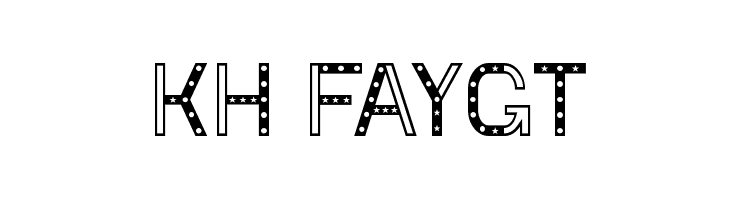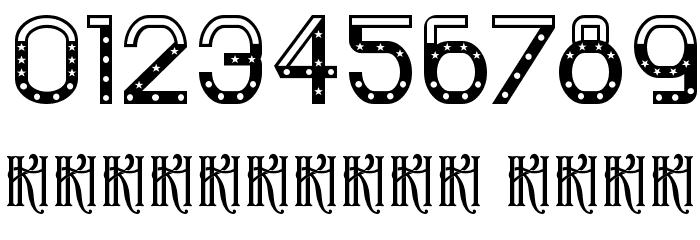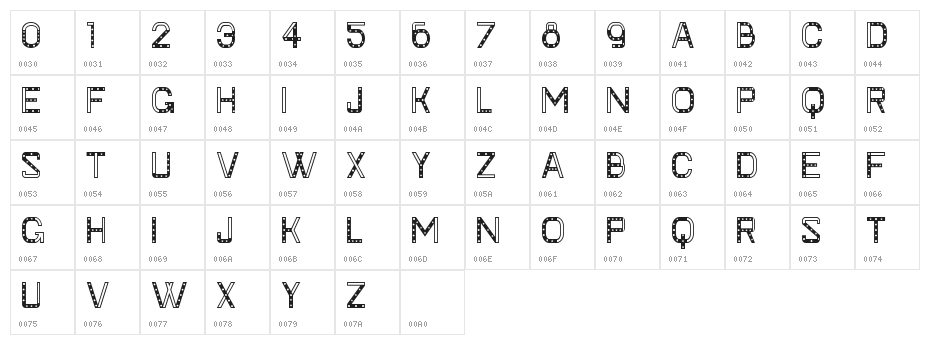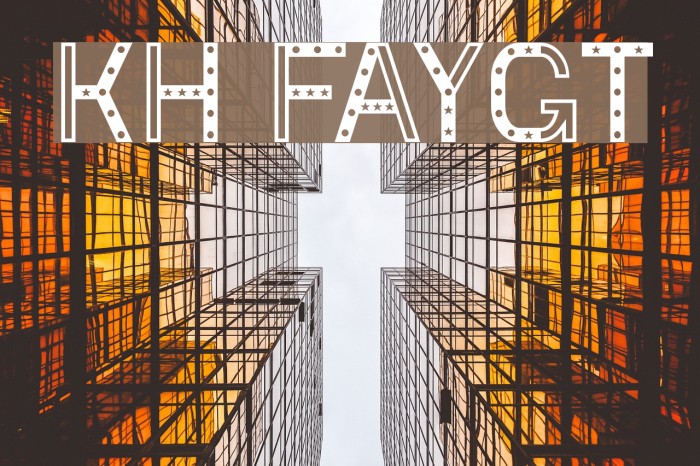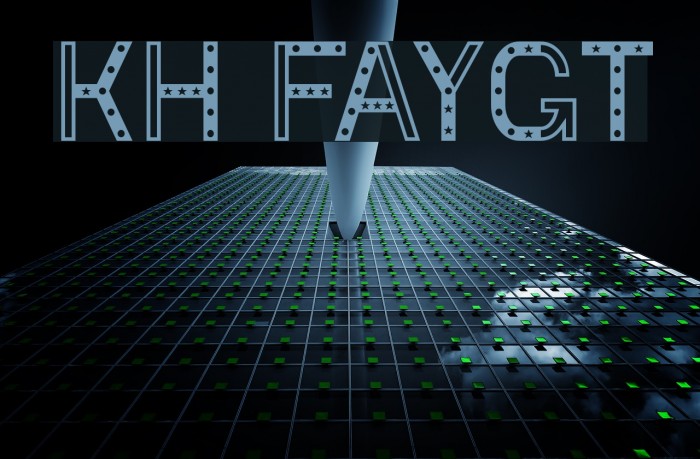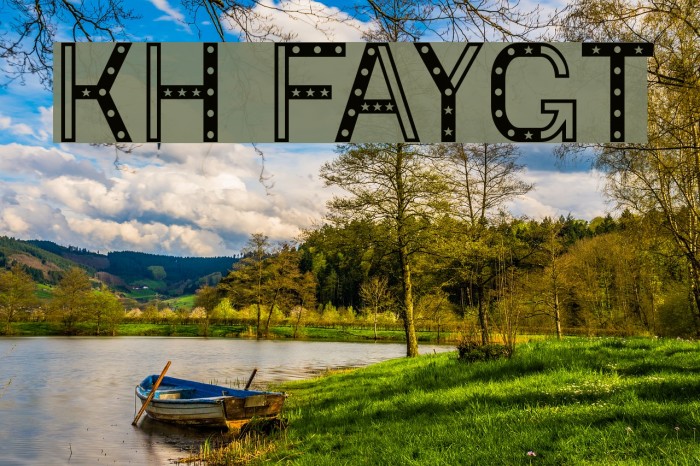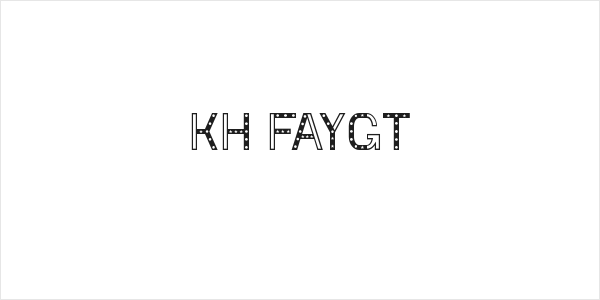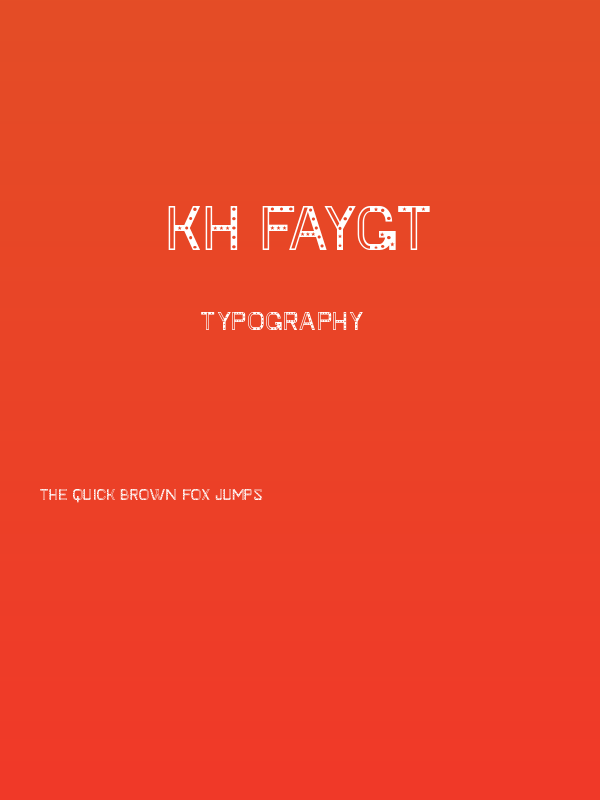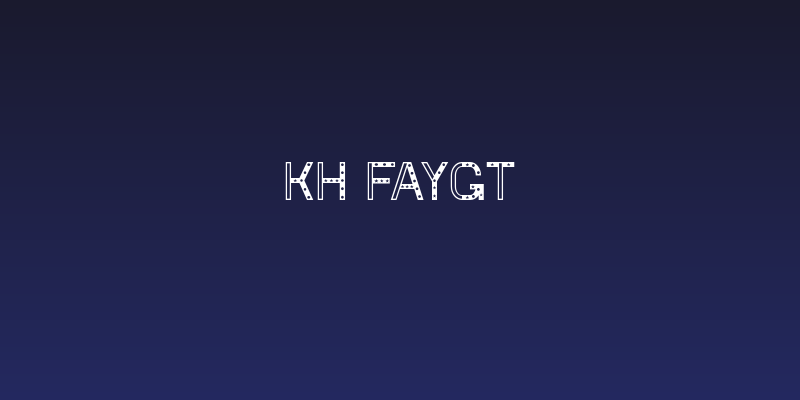
KH Faygt Font
KH Faygt Description
This font features a bold, decorative style with a unique star and dot pattern embedded within the characters. The uppercase letters are designed with a geometric structure, giving them a modern and playful appearance. The numbers follow the same decorative theme, ensuring consistency across all characters. The special characters maintain the same stylistic elements, making them suitable for eye-catching designs. This font is ideal for projects that require a fun and engaging visual impact, such as posters, banners, or themed events.